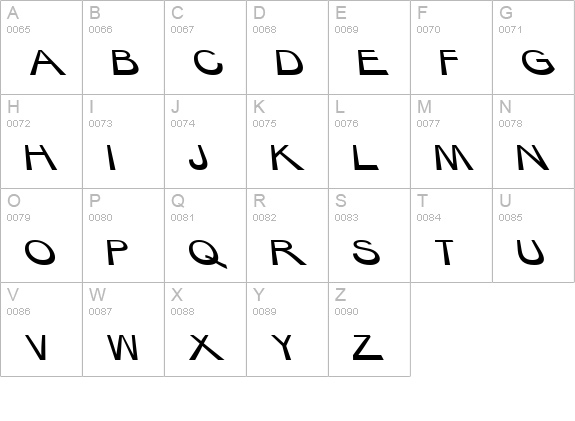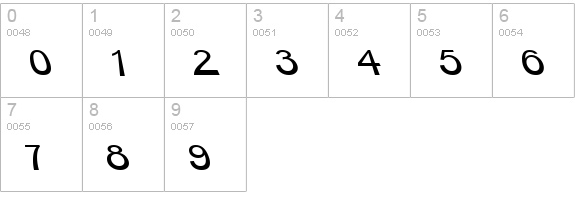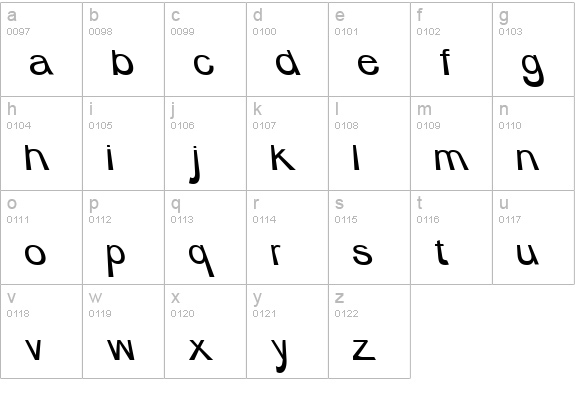
BigRedDAy Normal is the standard, neutral variant in the BigRedDAy typeface family \xE2\x80\x94 well suited to general body text, paragraphs, and standard typographic work.
BigRedDAy Normal font is a versatile and stylish typeface that adds a touch of modern flair to any project. With its clean lines and bold presence, this font is perfect for a wide range of design applications, from branding to advertising to web design. The sleek and professional look of BigRedDAy Normal font makes it a popular choice for designers looking to make a statement. What's even better is that BigRedDAy Normal font is available for free download at FontsMarket.com. This means you can easily add this eye-catching font to your collection without breaking the bank. Don't miss out on the opportunity to enhance your designs with the striking look of BigRedDAy Normal font – download it for free today!